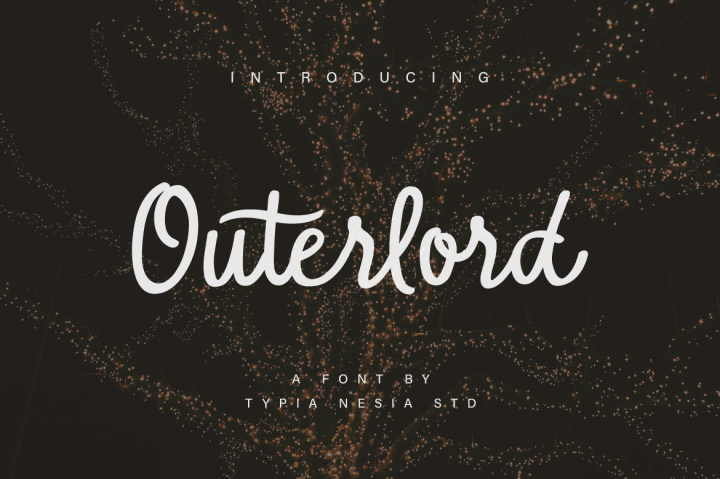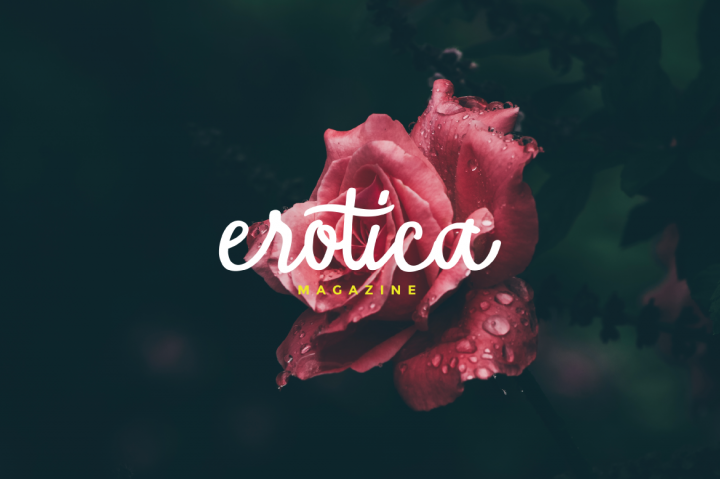
Outerlord Script Font
Outerlord is a Marker Signature Font. Outerlord font is suitable for any design needs, modern invitation design, logo and branding identity, blog design, modern advertising design, invitation, Art Quote, Home decor, Book/Cover Title, Invitation, special events, birthday, custom mug, pillow, t-shirts, any calligraphy style needs and more.
| Designer Name: | Typia Nesia |